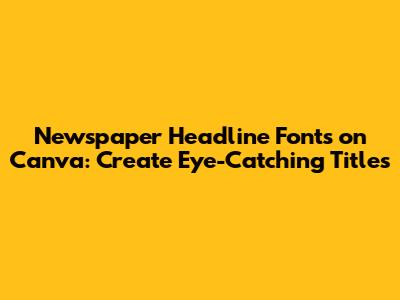
Newspaper Headline Fonts On Canva: Create Eye-Catching Titles
Hey guys! Ever wondered how to make your Canva designs pop with that classic newspaper headline feel? Well, you're in the right place! Let's dive into the world of newspaper headline fonts available on Canva and how you can use them to create eye-catching titles that grab attention.
Why Use Newspaper Headline Fonts?
Newspaper headline fonts bring a sense of authority, urgency, and classic appeal to your designs. They evoke a feeling of trustworthiness and importance, making them perfect for various projects. Whether you're designing a poster, creating social media graphics, or working on a presentation, using the right newspaper headline font can significantly enhance your message. These fonts are designed to be bold, easily readable, and attention-grabbing, ensuring that your headline stands out. Think about the impact of a well-crafted headline in a newspaper â itâs what draws you in and makes you want to read the rest of the article. Similarly, in your designs, a compelling headline font can make all the difference.
Choosing the right font also helps to set the tone and mood of your design. A traditional serif font can convey a sense of history and reliability, while a bolder, more modern sans-serif font might suggest innovation and forward-thinking. By carefully selecting your font, you can communicate the underlying message of your design more effectively. Plus, newspaper headline fonts are versatile. They work well in both digital and print media, making them a valuable asset for any designer. They can be used in a variety of contexts, from serious news-related designs to more playful and creative projects. The key is to understand the characteristics of each font and how it can best be used to enhance your overall design. So, let's explore some of the best newspaper headline fonts available on Canva and how you can incorporate them into your next project.
Top Newspaper Headline Fonts on Canva
Canva offers a wide array of fonts that mimic the look and feel of traditional newspaper headlines. Here are some of the top choices you should definitely check out:
1. Oswald
Oswald is a popular sans-serif font that's perfect for headlines. Its bold and condensed design makes it highly readable and attention-grabbing. Oswald works exceptionally well for modern newspaper designs and digital media. This font is clean and versatile, making it suitable for a variety of projects. Whether you're creating a headline for a blog post, a social media ad, or a presentation, Oswald can deliver a professional and impactful look. Its simplicity ensures that it remains legible even at smaller sizes, making it a practical choice for designs with limited space. Additionally, Oswald pairs well with other fonts, allowing you to create visually appealing and balanced layouts. You can use it for headlines and subheadings, combining it with a different font for body text to create contrast and visual interest. Oswald's modern aesthetic makes it a great option for businesses and brands that want to convey a sense of innovation and reliability.
2. Montserrat
Montserrat is another fantastic sans-serif option. It's clean, modern, and has a strong presence, making it ideal for headlines that need to stand out. This font is incredibly versatile and can be used in a wide range of design projects. From website headers to print materials, Montserrat provides a polished and contemporary look. Its geometric design gives it a distinct character that is both professional and approachable. Montserrat is also highly legible, ensuring that your message is easily understood by your audience. It comes in various weights, allowing you to create visual hierarchy and emphasize important information. This font is a great choice for brands that want to project a modern and sophisticated image. Whether you're designing a logo, creating marketing materials, or developing a website, Montserrat can help you achieve a cohesive and visually appealing design.
3. Arvo
For a serif option, Arvo is an excellent choice. It has a slightly vintage feel, reminiscent of classic newspaper fonts. Arvo is both readable and stylish, making it suitable for headlines and body text alike. This font exudes a sense of trustworthiness and tradition, making it perfect for projects that require a touch of elegance. Arvo's unique character is derived from its slab-serif design, which gives it a strong and distinctive appearance. It works particularly well in print, where its sharp lines and clear shapes can be fully appreciated. Arvo is also a great choice for digital designs, providing a classic and refined look. Whether you're designing a book cover, creating a poster, or developing a website, Arvo can help you create a timeless and sophisticated design. Its versatility allows you to use it in a variety of contexts, from formal to more casual projects.
4. Bebas Neue
Bebas Neue is a tall, sans-serif font that commands attention. Its narrow design makes it perfect for headlines where space is limited. Bebas Neue is a modern and clean font that adds a touch of sophistication to any design. This font is highly popular among designers due to its versatility and readability. Bebas Neue's sleek lines and condensed form make it ideal for headlines, logos, and posters. It is also a great choice for websites and mobile applications, providing a clean and contemporary look. The font's simplicity ensures that it remains legible even at smaller sizes, making it a practical choice for designs with limited space. Bebas Neue is available in various weights, allowing you to create visual hierarchy and emphasize important information. Whether you're designing a minimalist website or a bold advertising campaign, Bebas Neue can help you achieve a modern and impactful design.
5. Playfair Display
Playfair Display is an elegant serif font that works beautifully for more sophisticated newspaper-style headlines. It has high contrast and a refined look, perfect for creating a sense of importance. This font is particularly well-suited for designs that require a touch of luxury and sophistication. Playfair Display's graceful curves and delicate serifs make it a standout choice for headlines, invitations, and branding materials. It is also a popular choice for editorial design, adding a touch of elegance to magazine layouts and book covers. The font's high contrast ensures that it remains legible even at smaller sizes, making it a practical choice for a variety of design projects. Playfair Display pairs well with sans-serif fonts, allowing you to create visually appealing and balanced layouts. Whether you're designing a wedding invitation or a high-end product catalog, Playfair Display can help you achieve a refined and sophisticated design.
How to Use These Fonts in Canva
Using these fonts in Canva is super easy. Hereâs a quick guide:
- Open Canva: Log into your Canva account or create a new one.
- Create a Design: Choose the type of design you want to create (e.g., poster, social media graphic).
- Add Text: Click on the âTextâ tab and add a text box to your design.
- Select Your Font: Click on the text box and then click on the font dropdown menu. Type the name of the font you want to use (e.g., Oswald, Montserrat) and select it from the list.
- Adjust Size and Style: Adjust the size, color, and style (bold, italic, underline) of your text to achieve the desired effect.
- Position Your Headline: Place your headline in a prominent position on your design to grab attention.